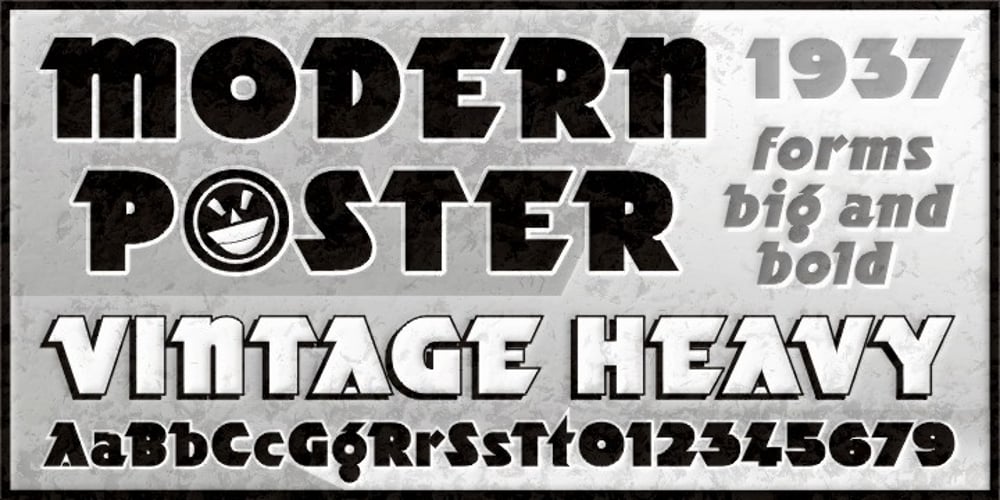
ARB 70 Modern Poster Font Family was designed by Alf R. Becker, Michael Gene Adkins and published by The Fontry. ARB 70 Modern Poster contains 12 styles and family package options. There are poster fonts, and there are poster fonts. Everyone’s always looking for a heavy, space-filling poster font, especially one that stands out and gets them noticed for its bold yet charming characteristics. And then there’s ARB 70, a badder than bad poster font fraught with spiky, attention-commanding points and shapes and forms that can only have come from another era, another time–1937, to be exact, when it was first published by ST Publications in SIGNS of the Times magazine. This was the 70th alphabet by master sign painter, Alf R. Becker. Beginning in January, 1932, Alf R. Becker of St. Louis Missouri, at the request of then-editor E. Thomas Kelly, supplied SIGNS of the Times magazine’s new Art and Design section with an alphabet a month, a project initially predicted to last only two years. Misjuding the popularity of the “series,” it instead ran for 27 years, ending finally two months before Becker’s death in 1959, for a grand total of 320 alphabets, a nearly perfect, uninterrupted run. In late 1941, just ten years after the first alphabet was published, 100 of those alphabets were compiled and published in bookform under the title, 100 Alphabets, by Alf R. Becker. As published in October, 1937, this is the description that accompanied Becker’s 70th alphabet, Modern Poster: Advanced Modern Poster–Alphabet No. 70 in Alf R. Becker’s series. When properly executed, this letter form gives a note of individuality to the modernly designed sign, display card or poster. The sketches of the “B” and “O” illustrate how the letters are constructed by combining elemntary strokes. The two letters were 1æ inches tall and were made with double strokes of a No. 8 red sable brush. Many font designers have tackled converting Becker’s incredible achievement from paper to digital, and many claim to treat his work with care and dignity. But the Fontry’s Becker fonts remain the most historically accurate and viable treatments available, arriving in two industry-satisfying versions: CAS (Computer-Aided Signmaking) and DTP (Desktop Publishing). And as with all Fontry fonts, the kerning is not optional–it’s exceptional-!!!